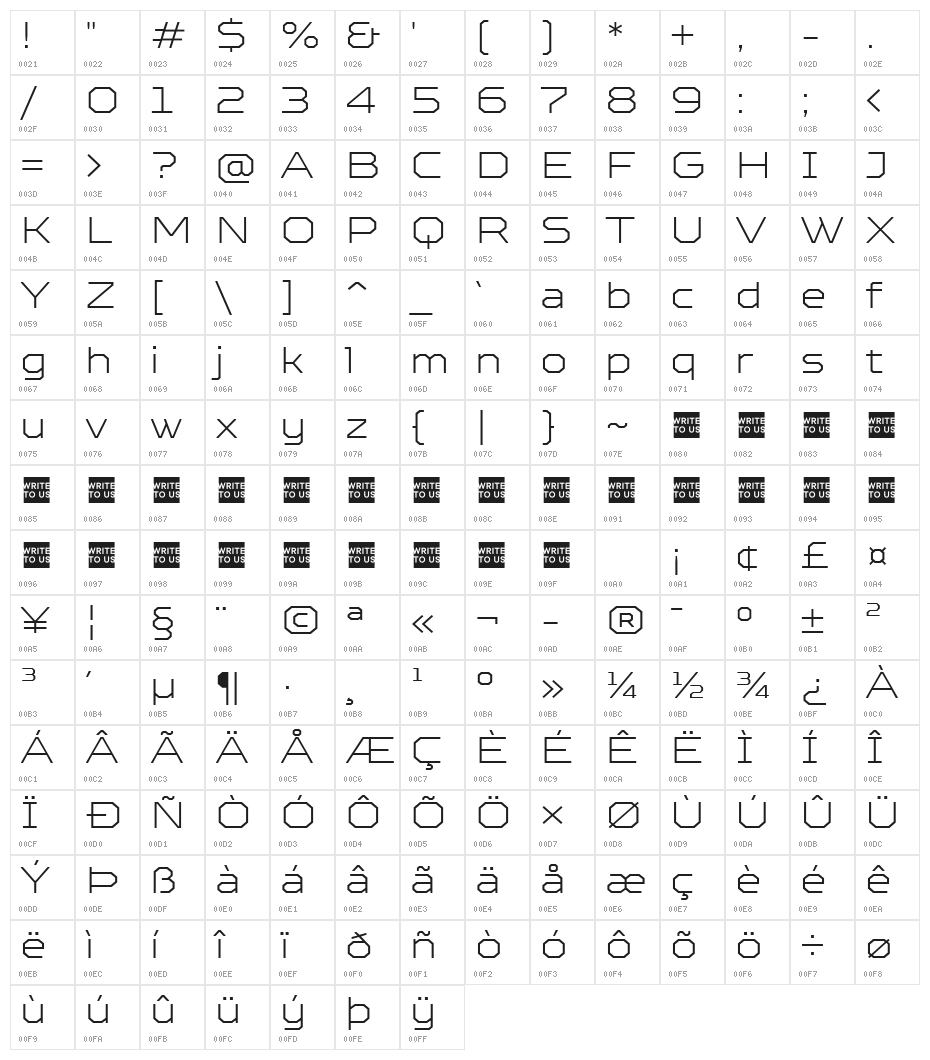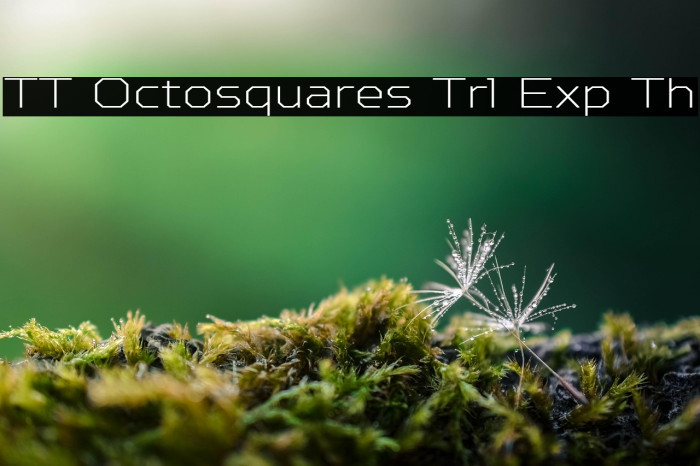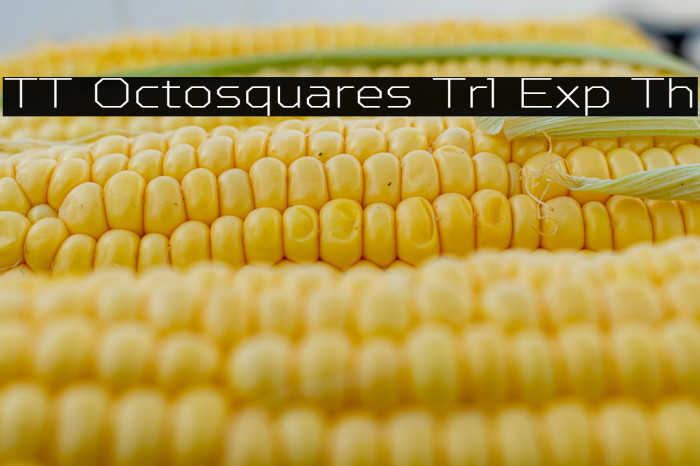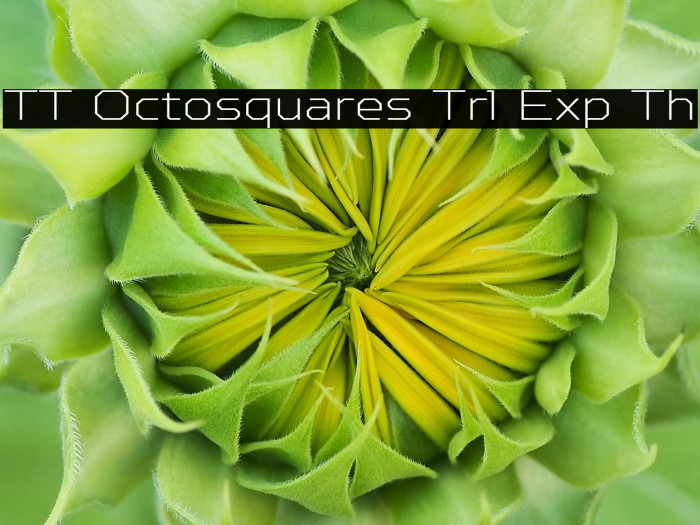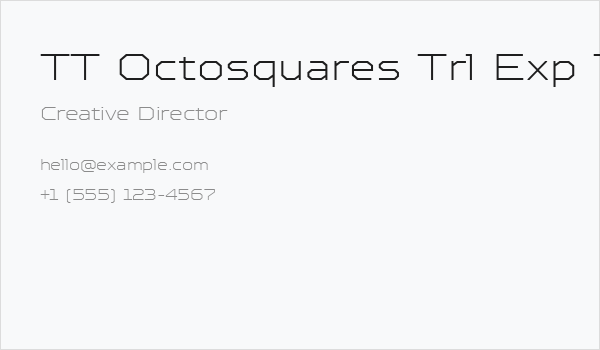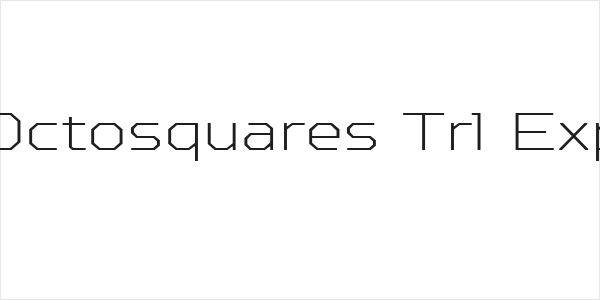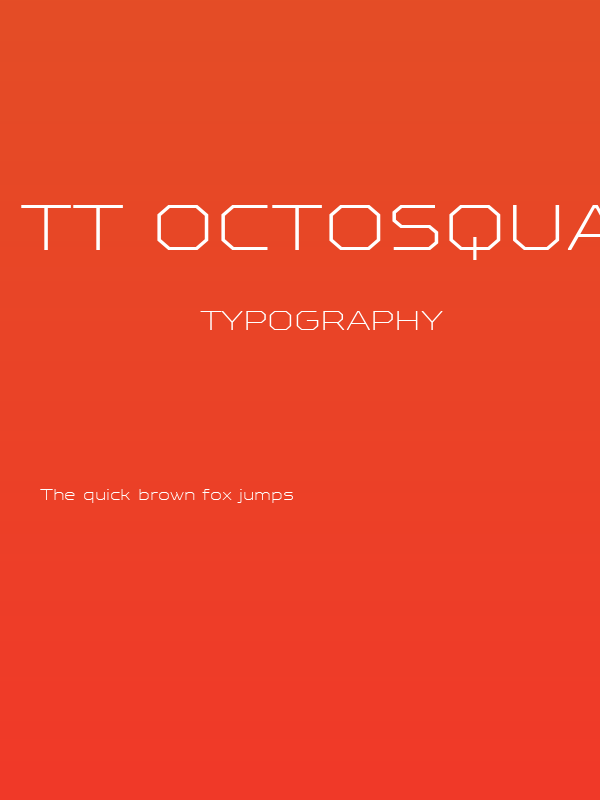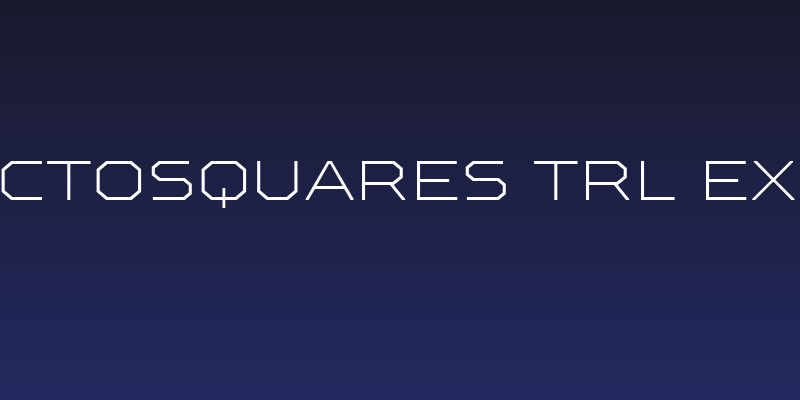
TT Octosquares Trl Exp Th Font
TT Octosquares Trl Exp Th Description
This font features a geometric and angular design, characterized by its octagonal shapes and clean lines. The uppercase and lowercase letters maintain a consistent structure, with sharp edges and a modern aesthetic. The numerals and special characters follow the same design principles, ensuring uniformity across all glyphs. The font's unique style makes it stand out, offering a futuristic and technical feel. Its precise and structured appearance is ideal for projects that require a contemporary and innovative look.
| Use Case | Logos, Headlines, Digital interfaces |
| Proposed Projects | Ideal for technology branding, modern posters, digital interfaces, and innovative product packaging. |